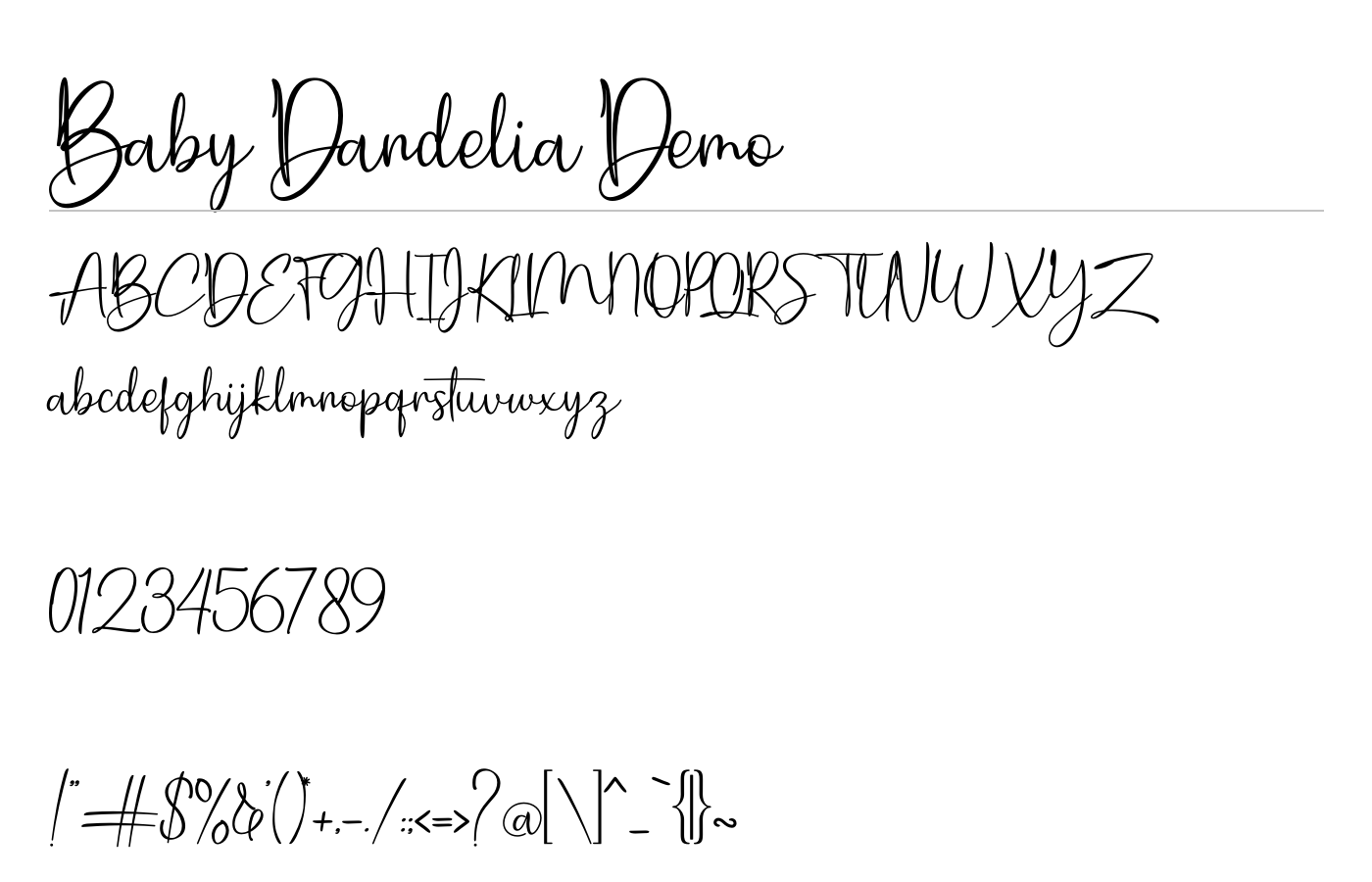
Baby Dandelia Demo is a delicate and playful handwritten script font that features thin, flowing strokes with a casual elegance. Its slender letterforms and slightly irregular lines give it a charming, organic feel, making it perfect for invitations, branding, and creative projects that seek a personal and friendly touch. This font works beautifully in contexts that want to evoke warmth, creativity, and a lighthearted yet sophisticated mood.
Baby Dandelia Demo Font
About Baby Dandelia Demo Font
| Font family | Baby Dandelia Demo Font |
| Designer | Tikara Sari |